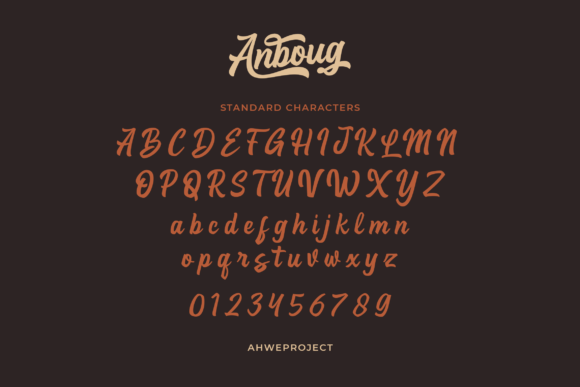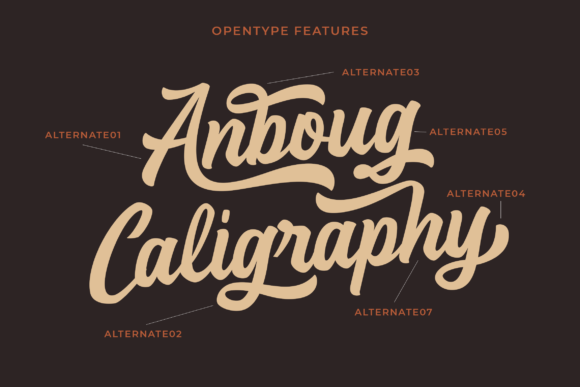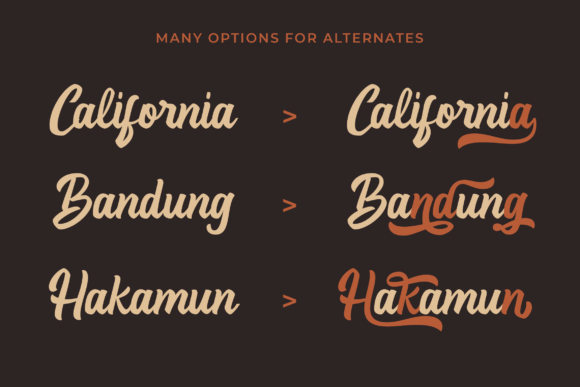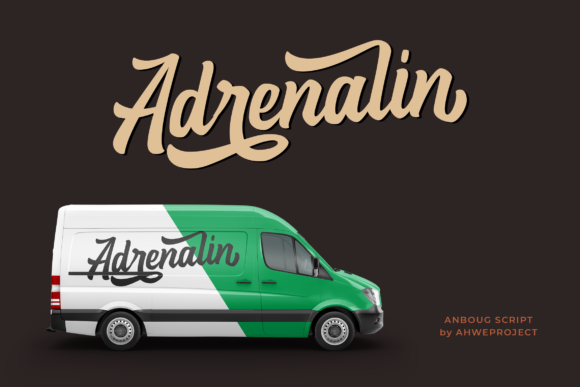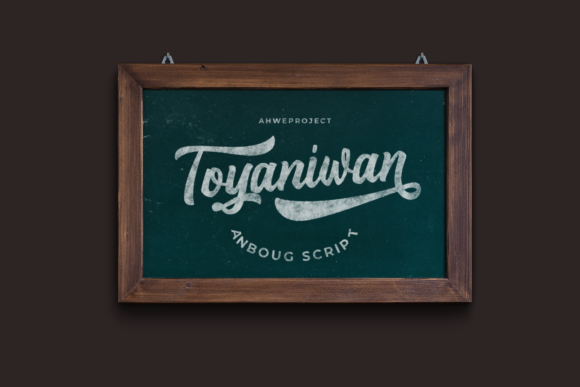
About Anboug Font
Anboug is a gorgeous and bold handwritten font, crafted to give your headlines and logotype projects a retro touch. This font reads as strong, confident, and dynamic and can add tons of nostalgic character to your designs.